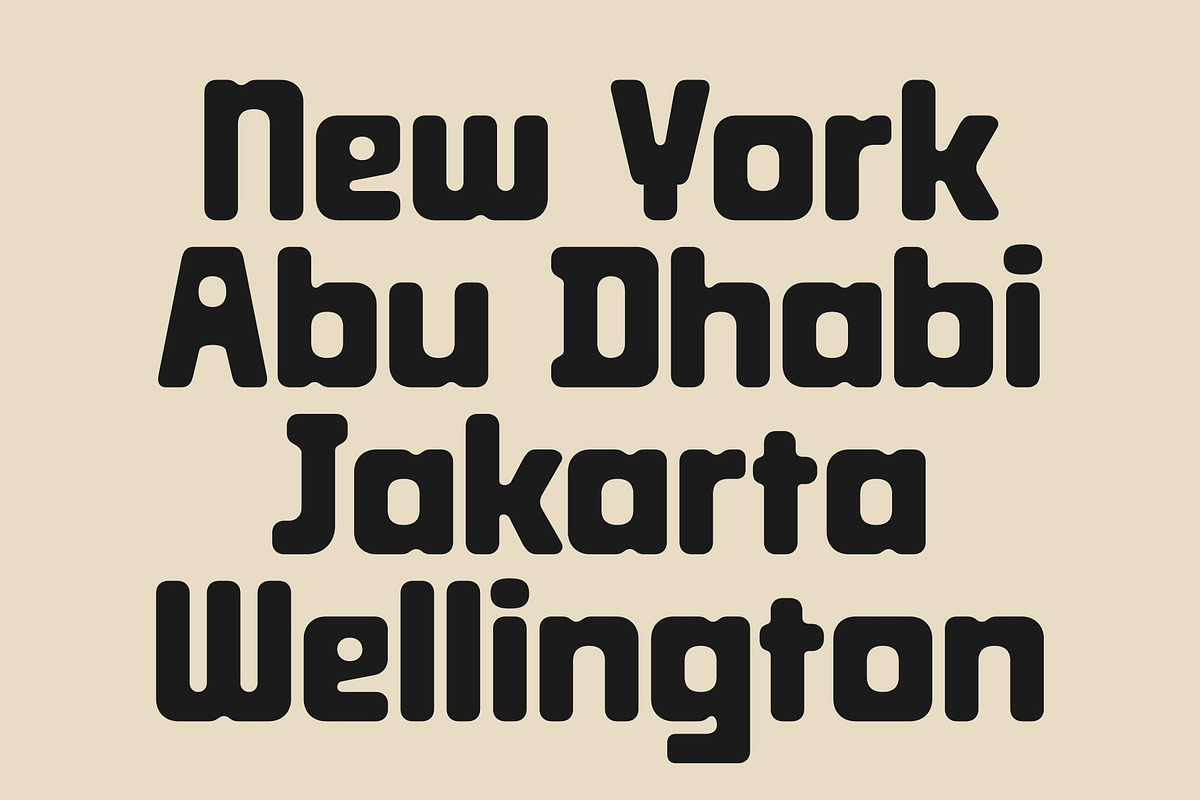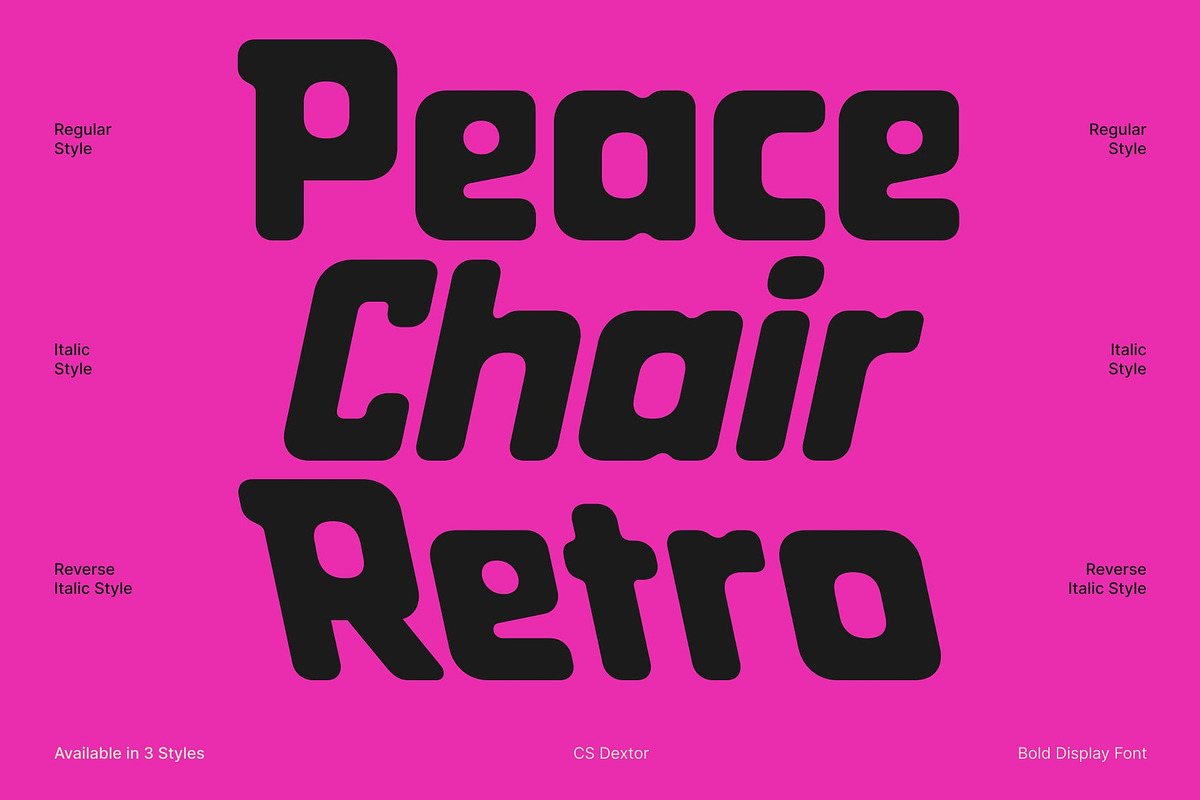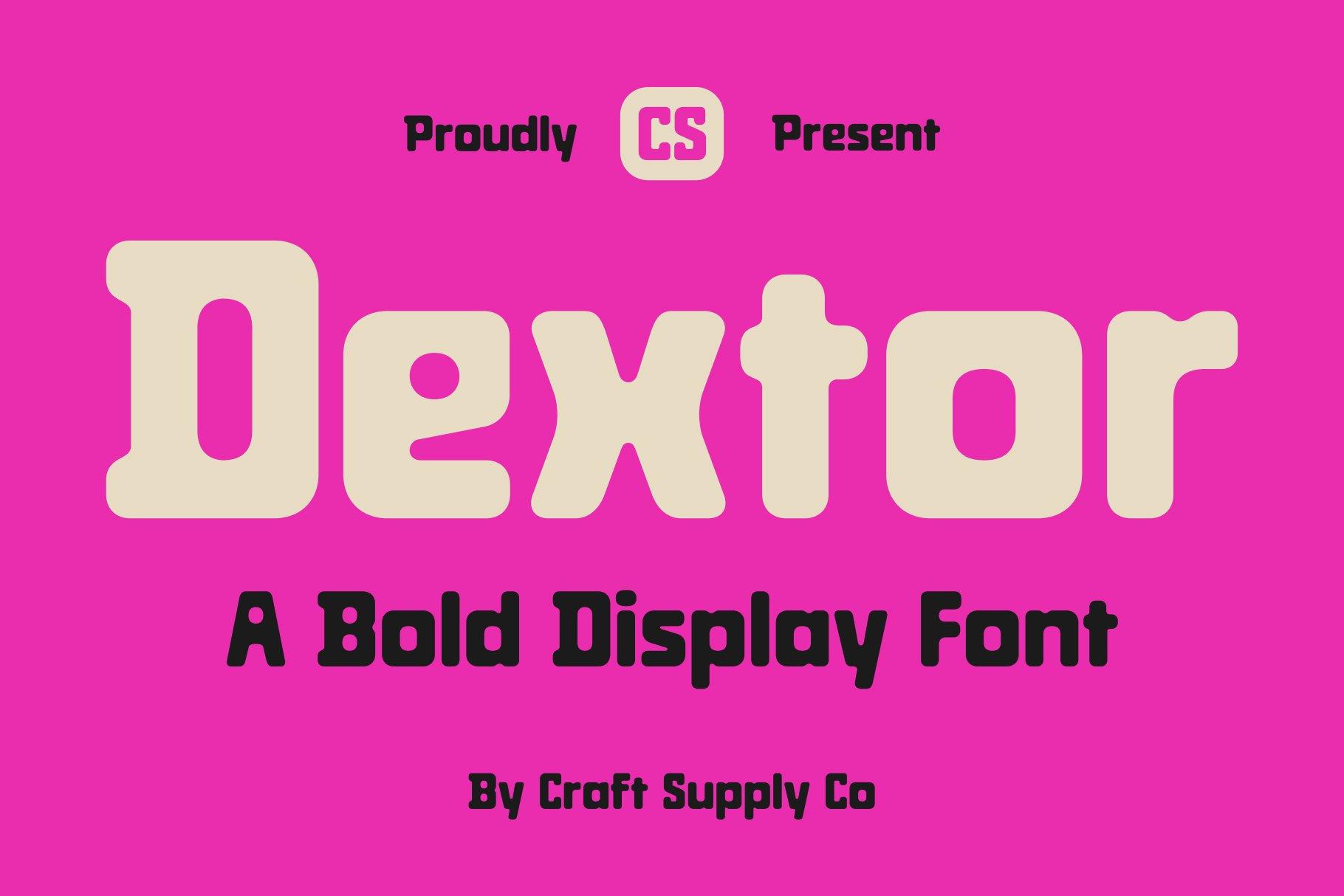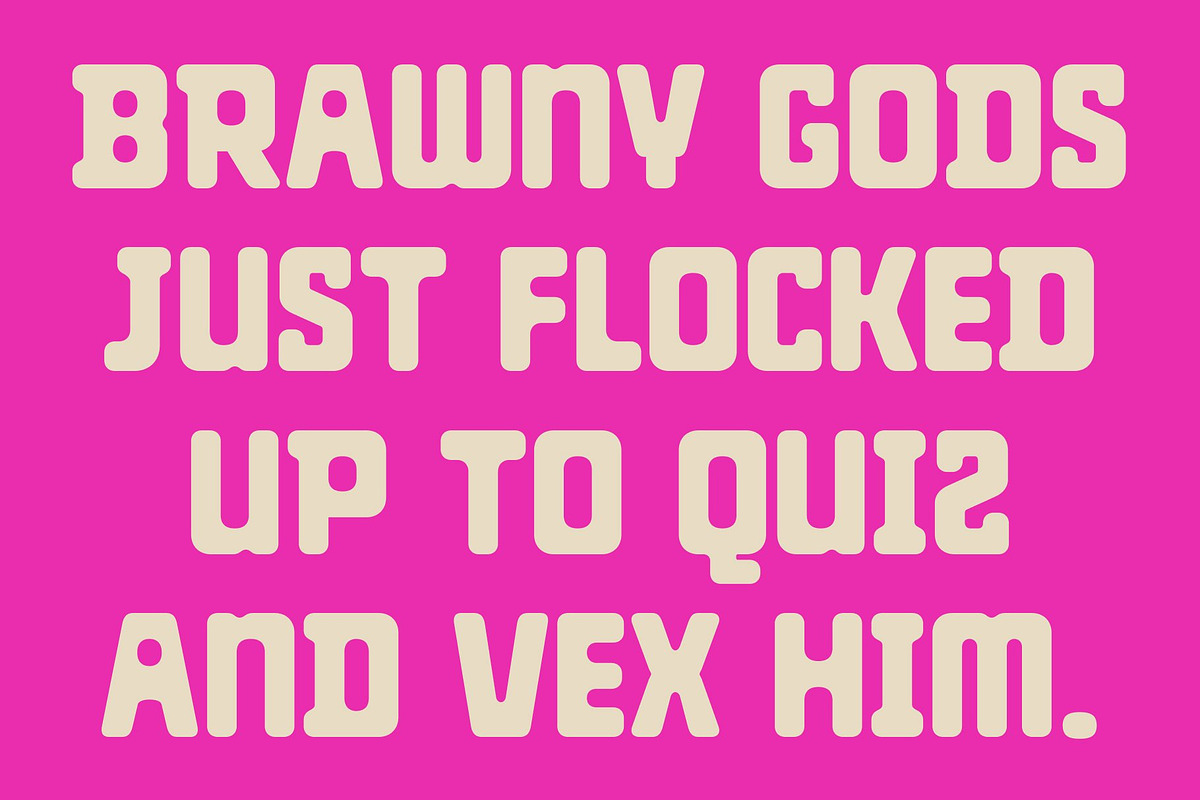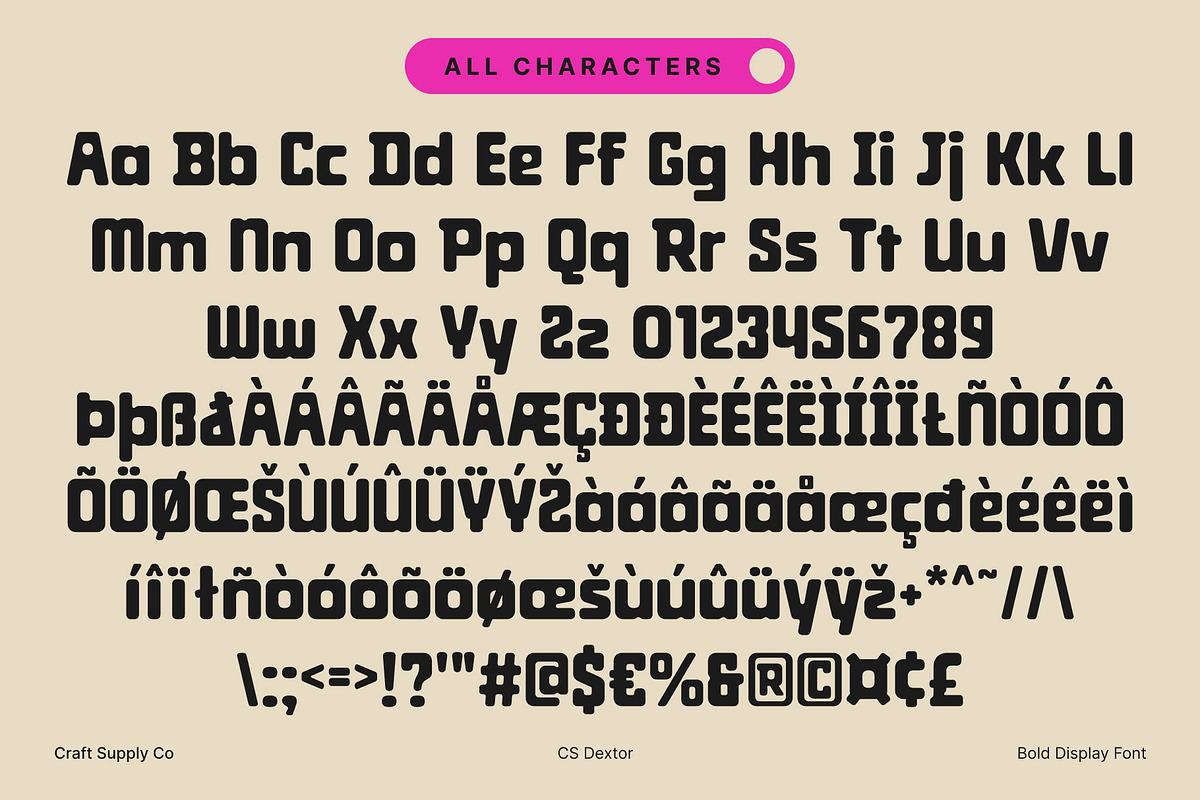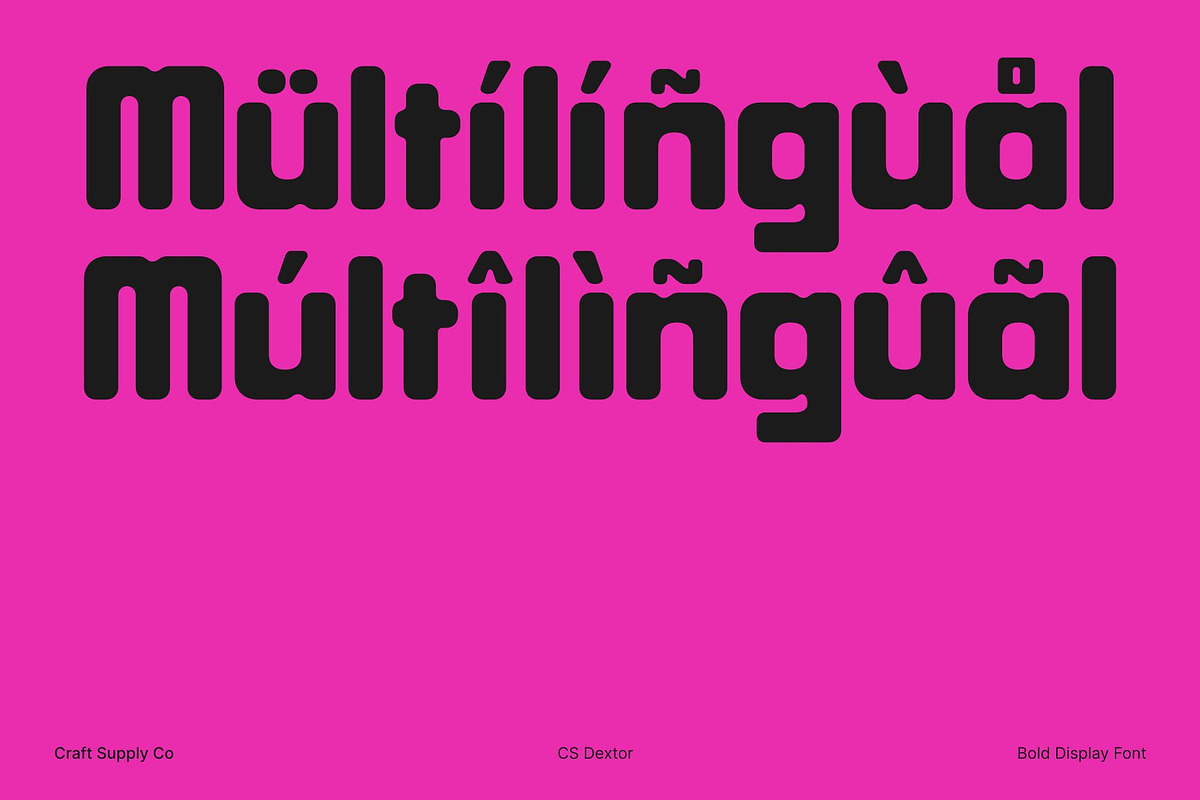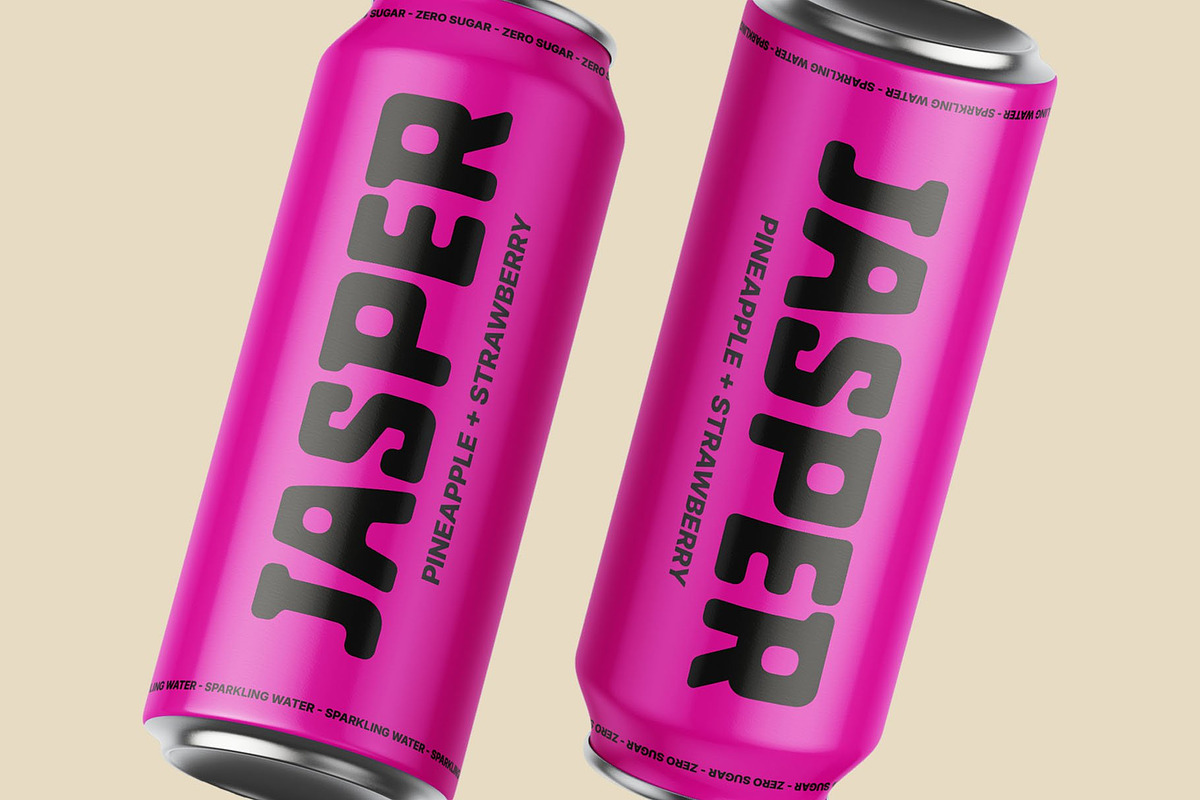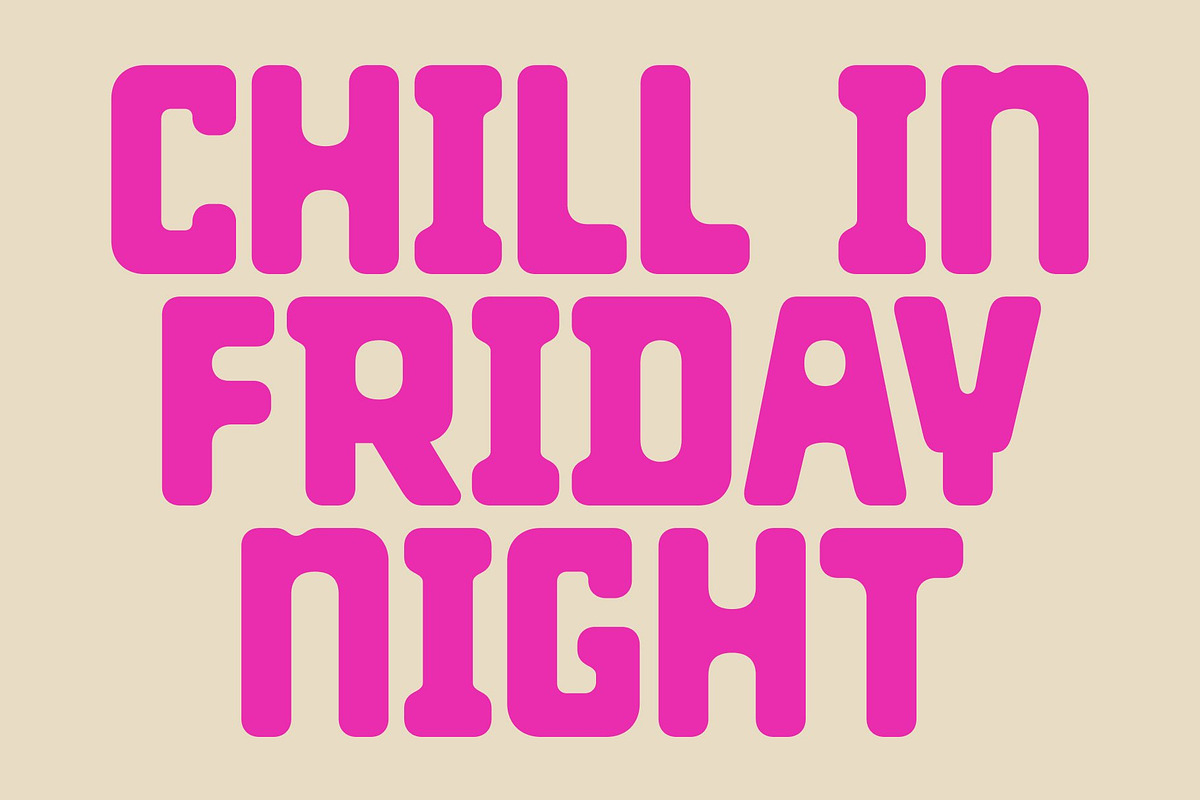
CS Dextor – Bold Font
CS Dextor – Bold Sans Serif with Confident Presence: Rounded Display Sans Serif for Impactful Design
Strong and Confident Letterforms This is a bold sans serif font designed to make a powerful impression. Its solid, rounded shapes give each character a confident, approachable personality, ensuring your text stands out in any design context. Ideal for projects that require clarity, authority, and visual strength.
Rounded Shapes for Modern Friendliness The soft, rounded edges of this font balance its bold weight, creating a font that is both strong and inviting. This harmonious combination makes it perfect for headlines, posters, or branding where impact must meet readability and style.
Designed for Maximum Visibility With its thick strokes and clean geometry, this font ensures legibility even at large display sizes. The font’s structured yet friendly form enhances designs that demand attention, making it suitable for editorial layouts, digital campaigns, and promotional graphics.
Versatile and Distinctive This font combines modern aesthetics with commanding presence, making it a go to choice for designers seeking bold, memorable typography. From corporate branding to creative posters, this font delivers powerful expression, clarity, and contemporary appeal in every use.